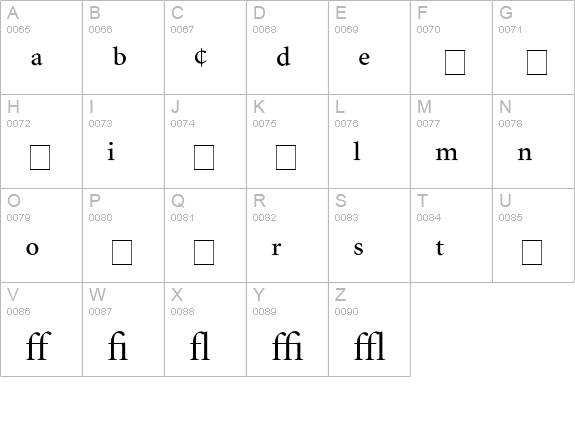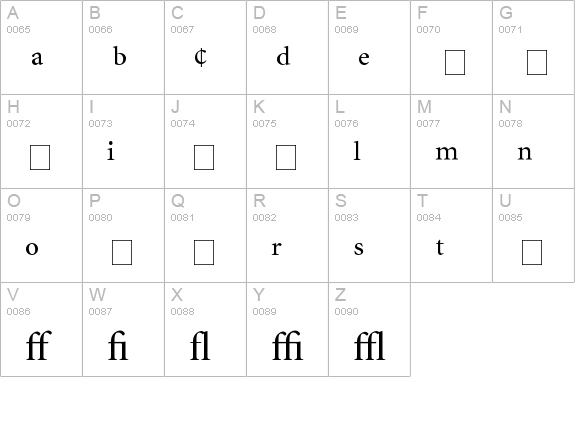
Atlantix Pro Display SSi Display Regular Font Details
Atlantix Pro Display SSi Display Regular is the standard, neutral variant in the Atlantix typeface family \xE2\x80\x94 well suited to general body text, paragraphs, and standard typographic work.